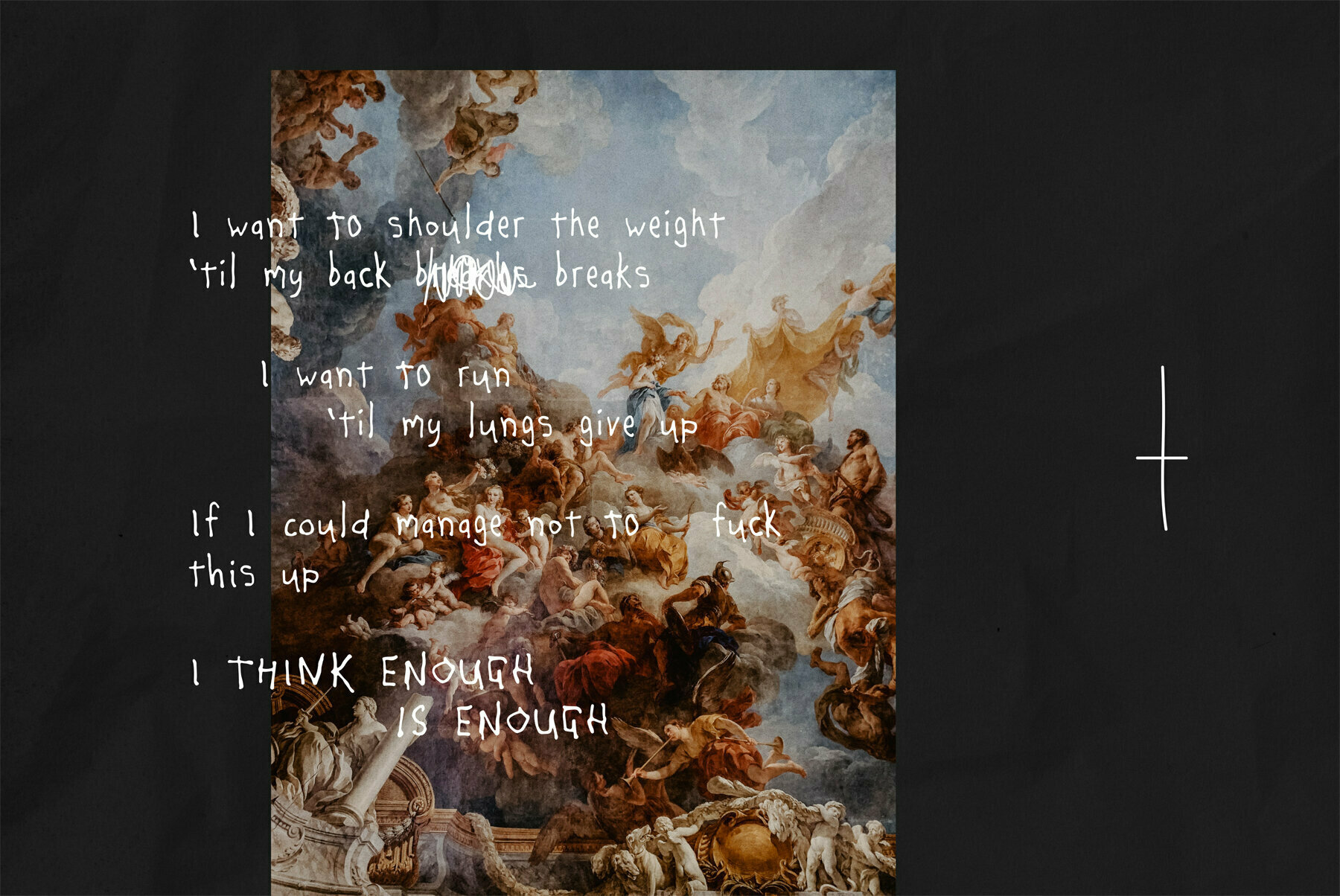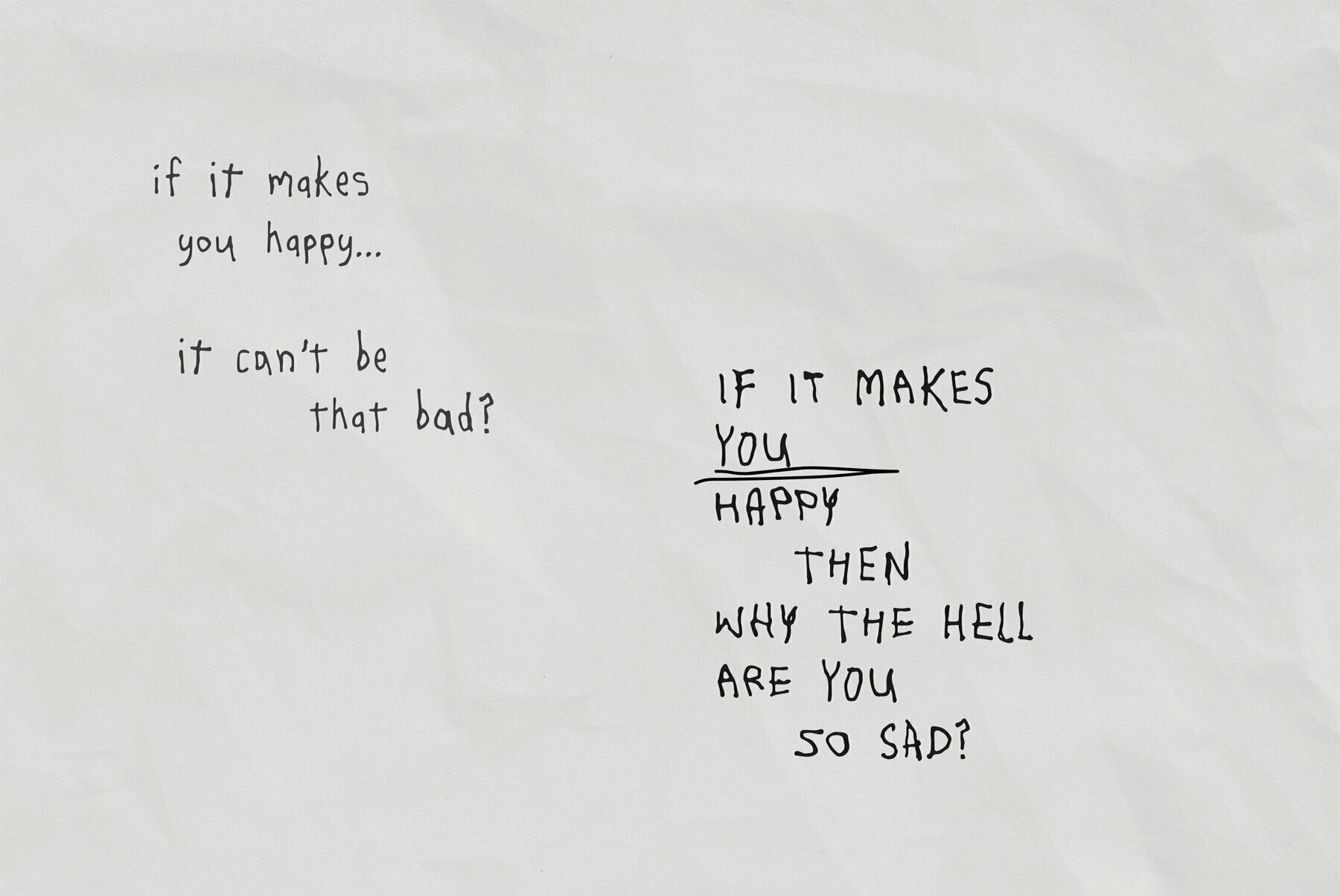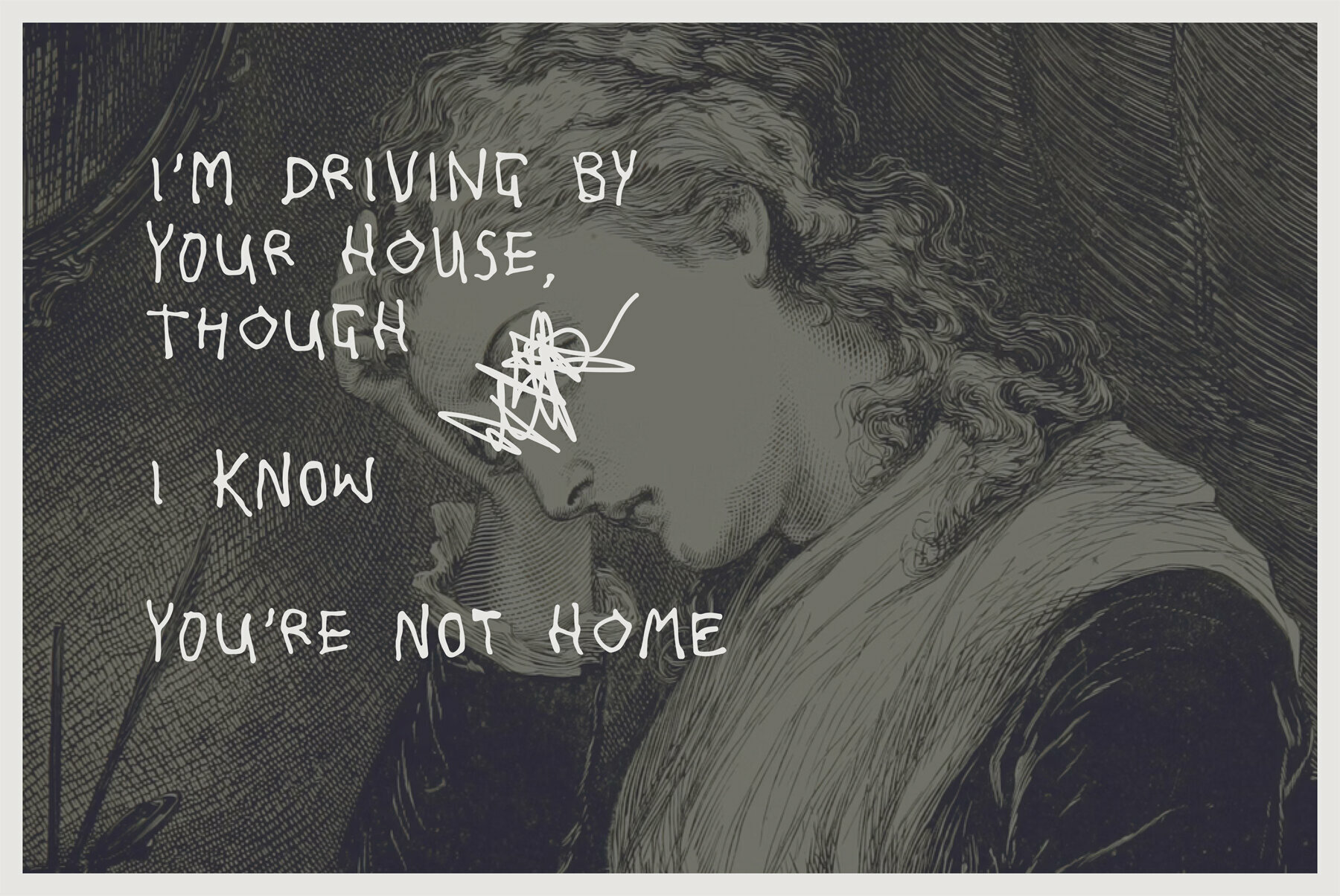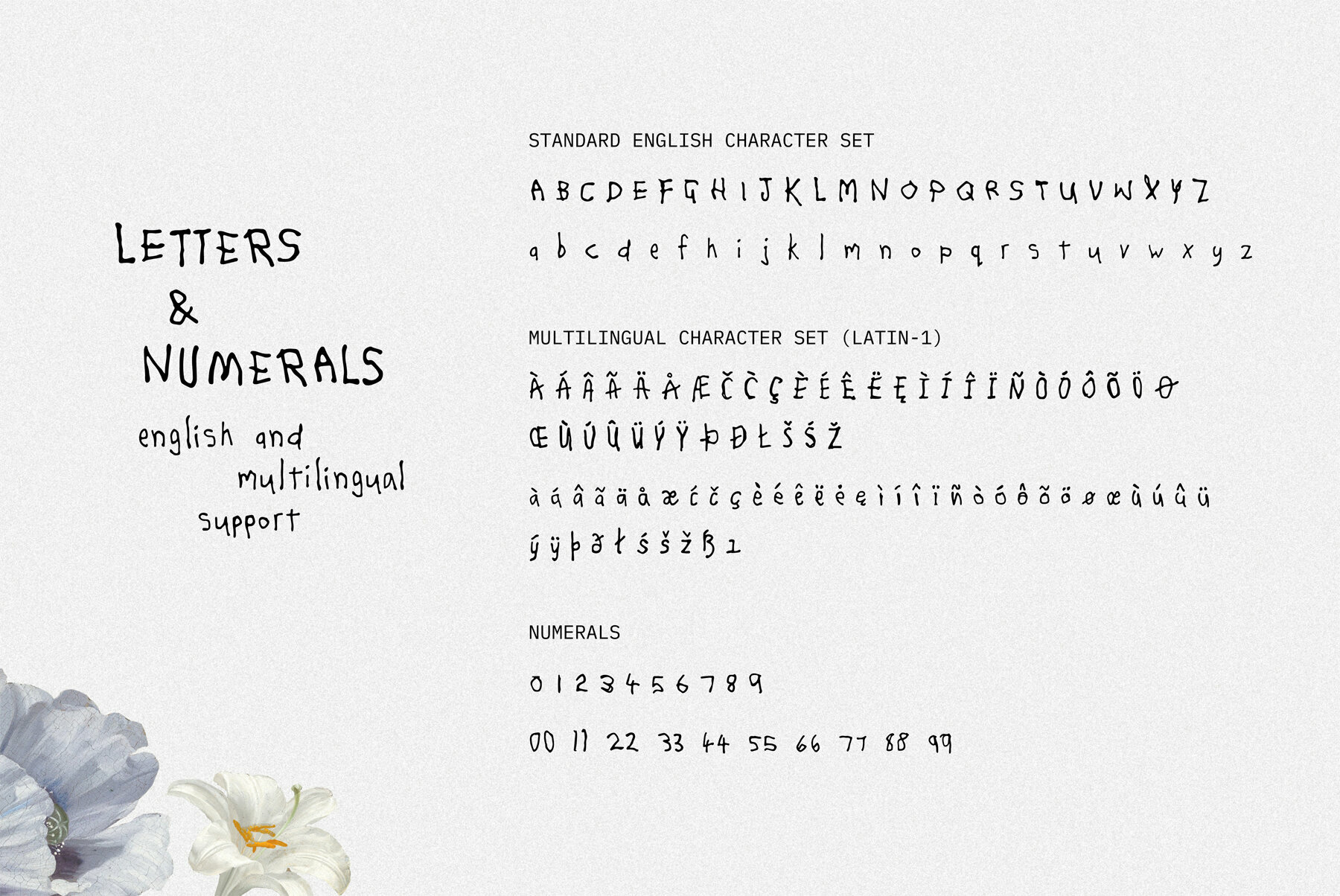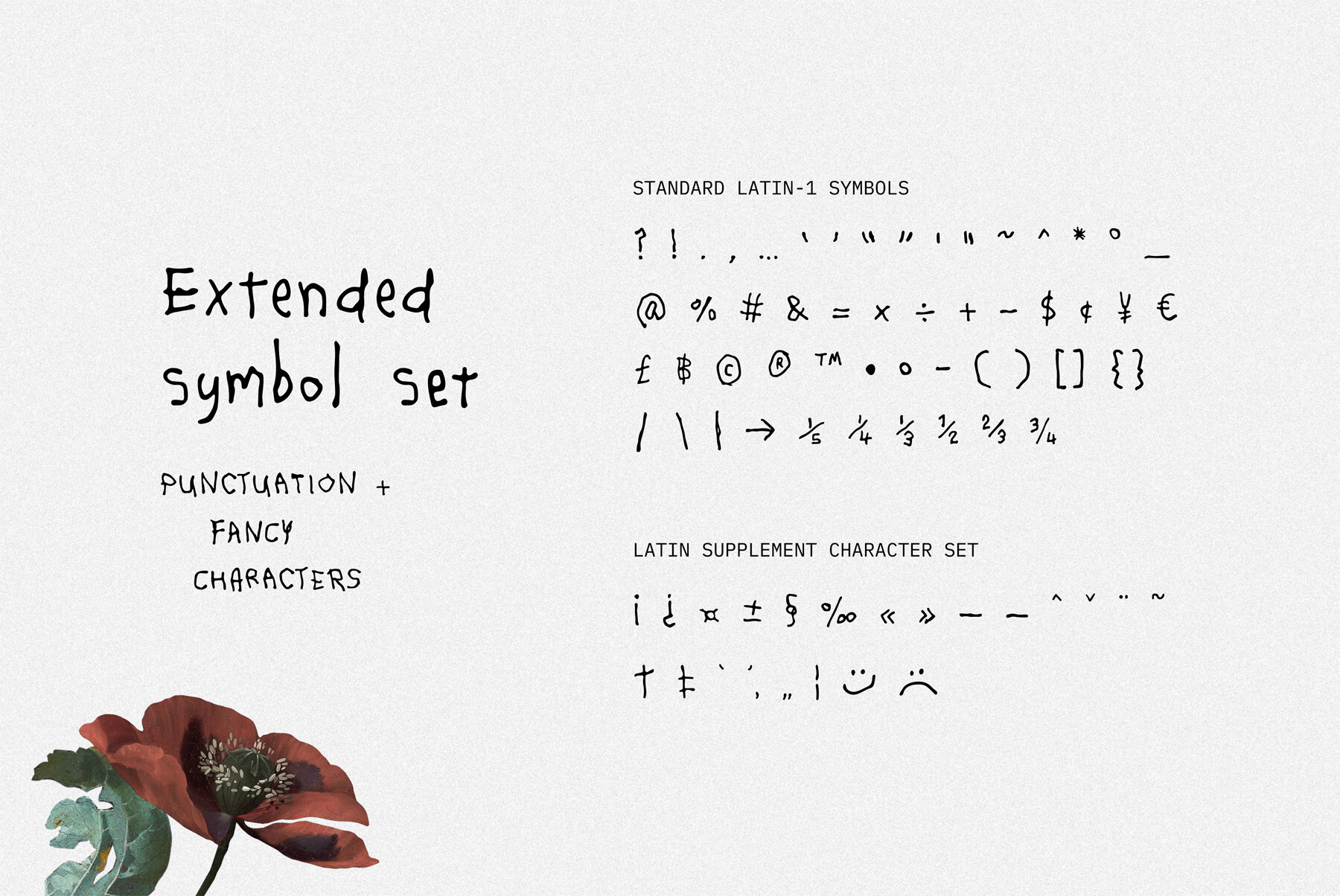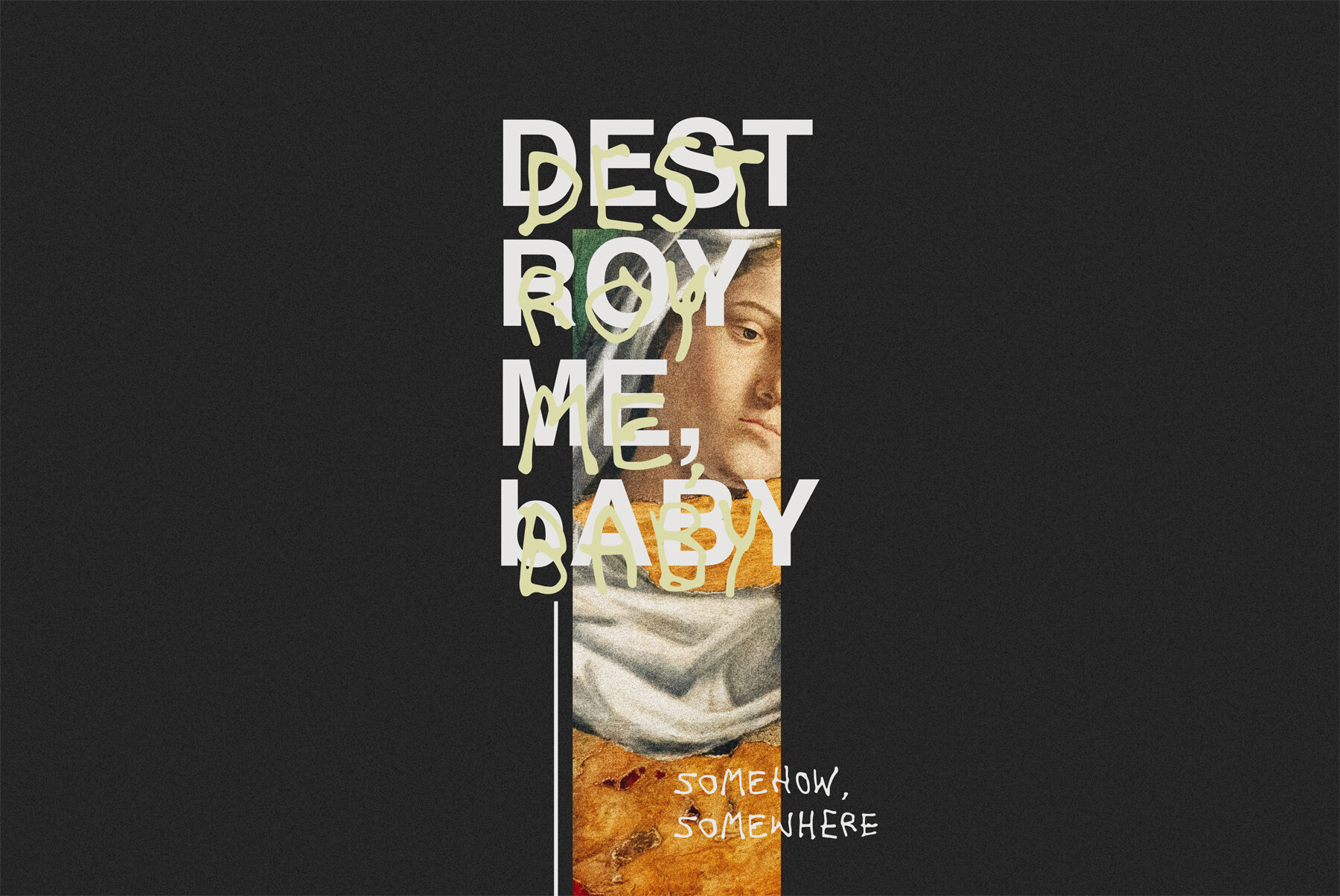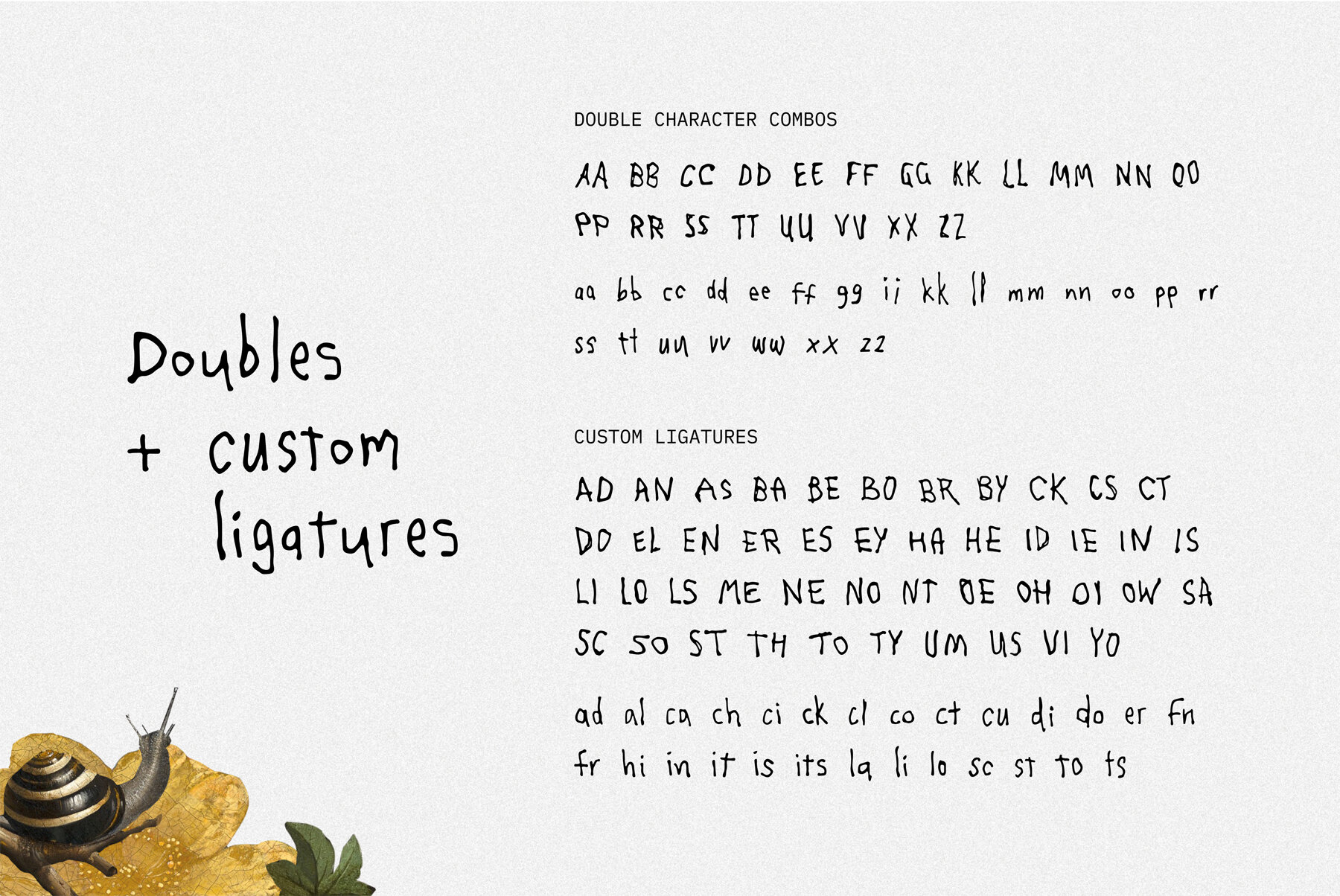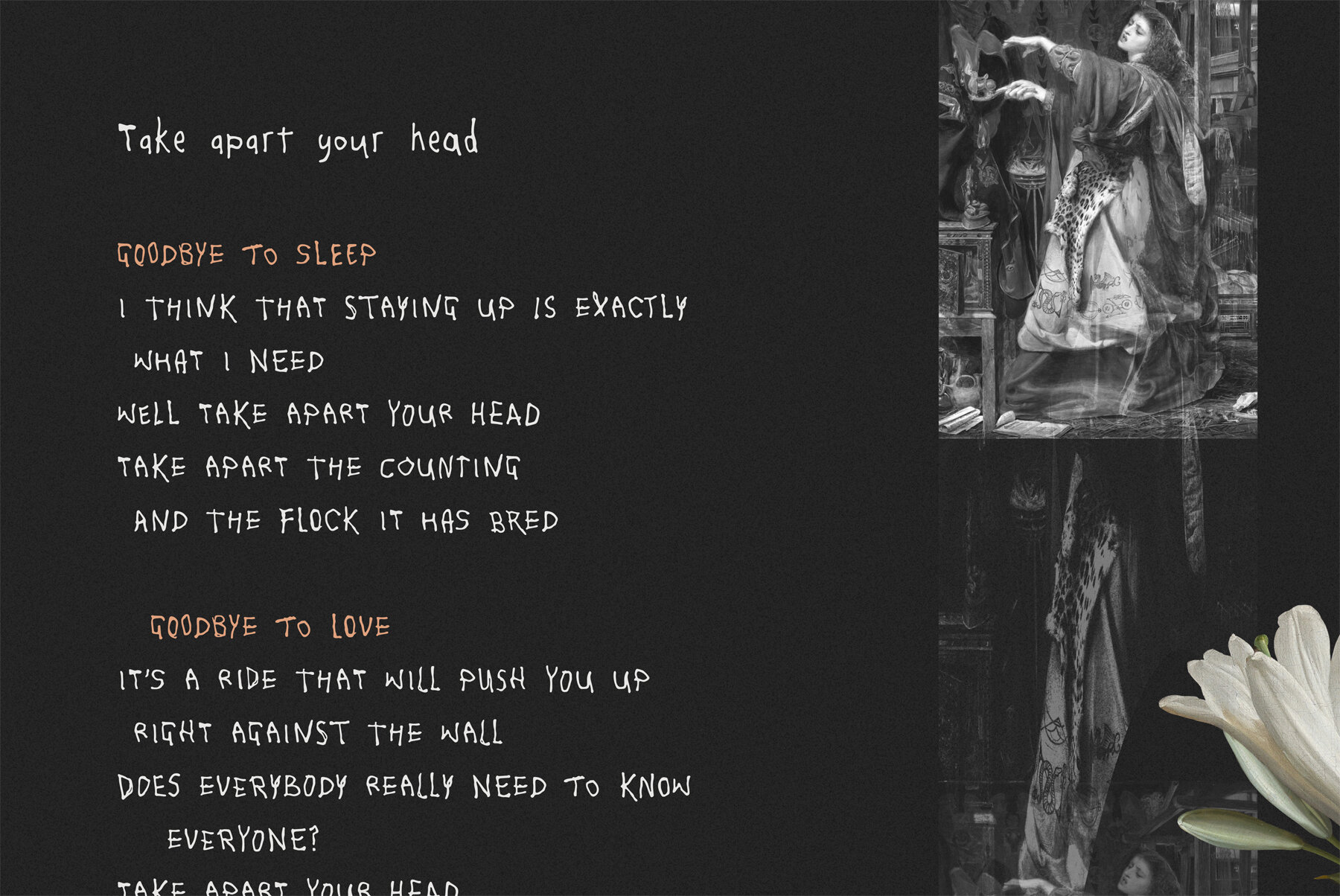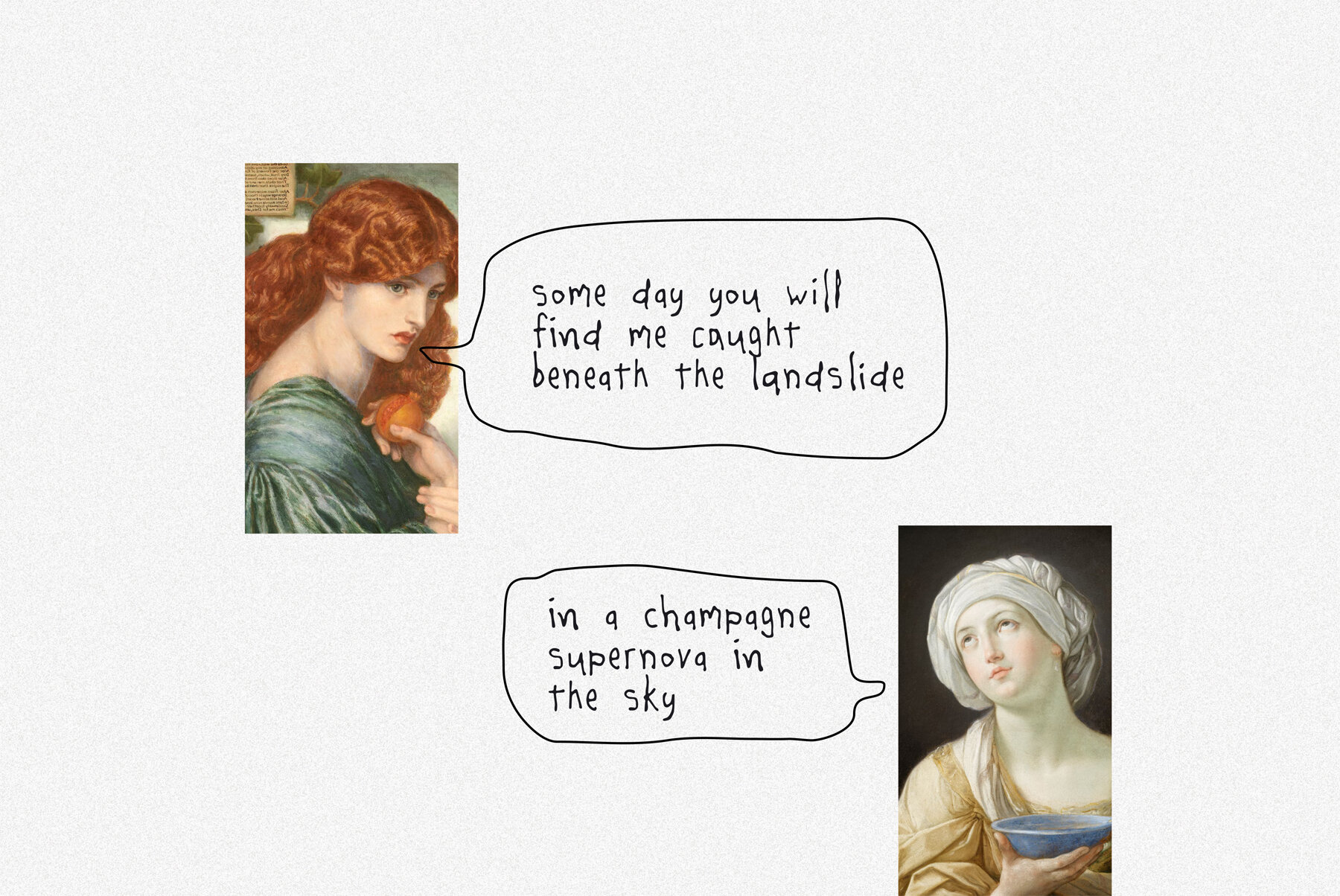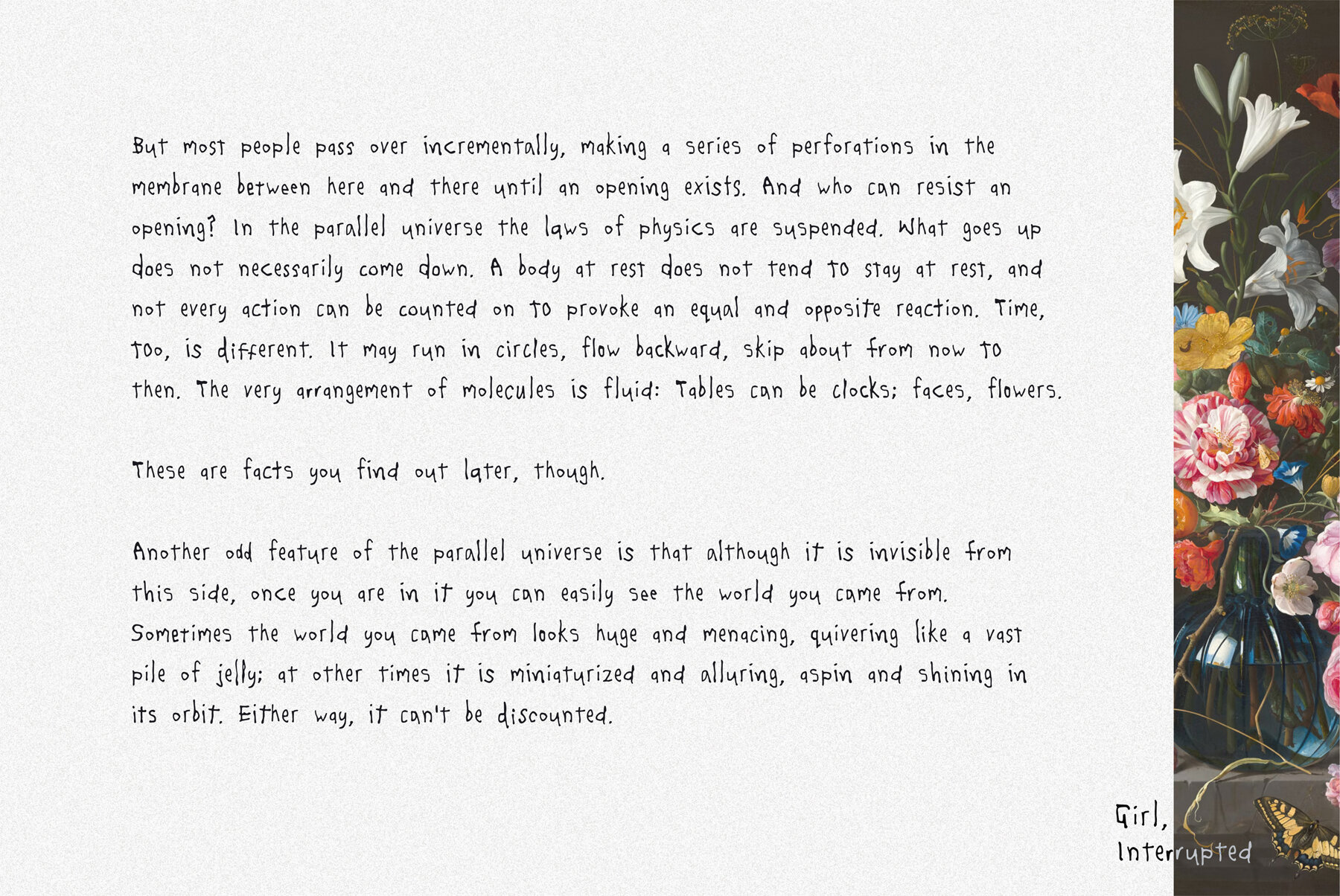
Sad Poem Font
Sad Poem
A sad little font for your sad little handwritten poems. Get it all out on the page with this somber script that doesn't really care much for etiquette. Over 360 glyphs grant this font its realistic charm. Pair it with photos, art or sketches and create precious, sad little keepsakes.